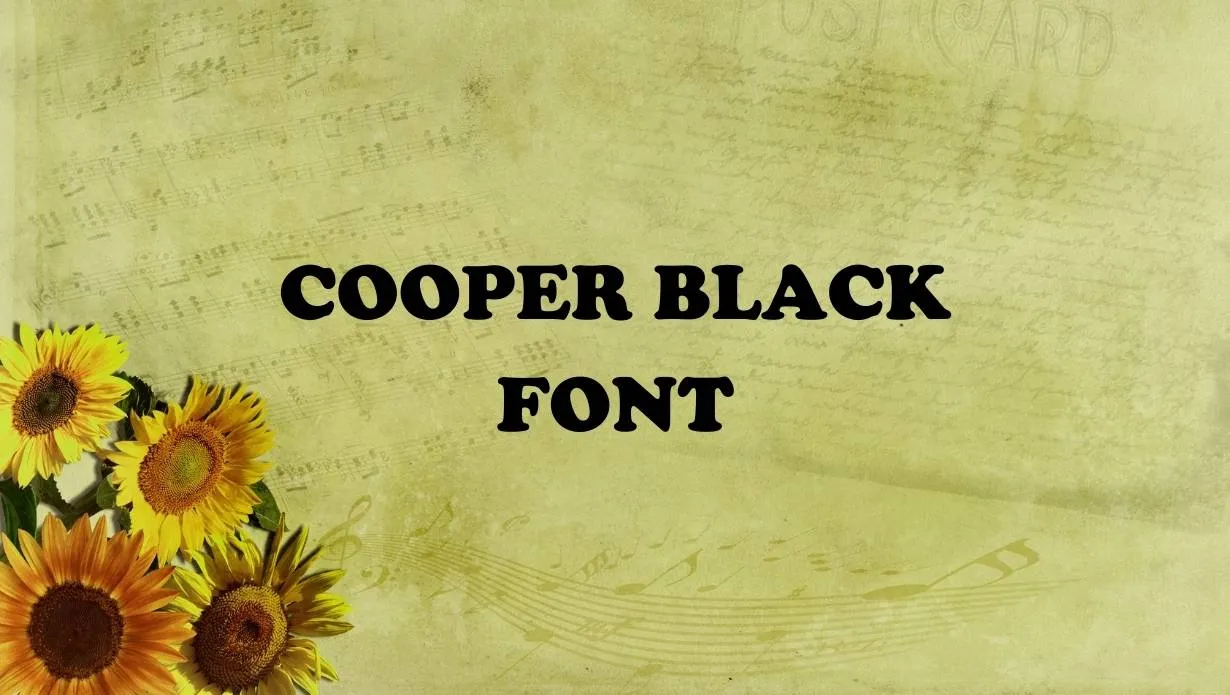
About Cooper Black Font
Cooper Black Font is another amazing Serif typeface. Oswald Bruce Cooper is an American typeface and graphic designer who has designed this elegant font.
This font has various versions and numerous variants that can best use with the Bickham font.
- Cooper Black Font Regular
- Cooper Black Font Italic